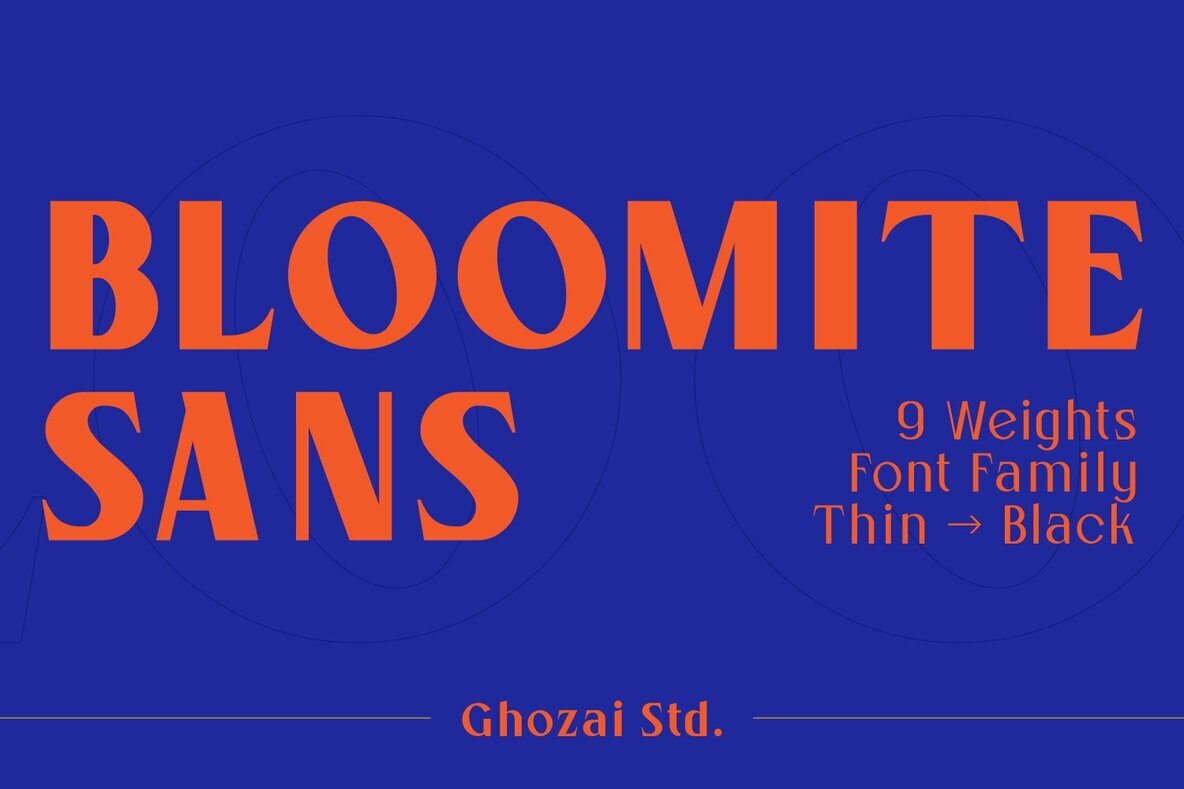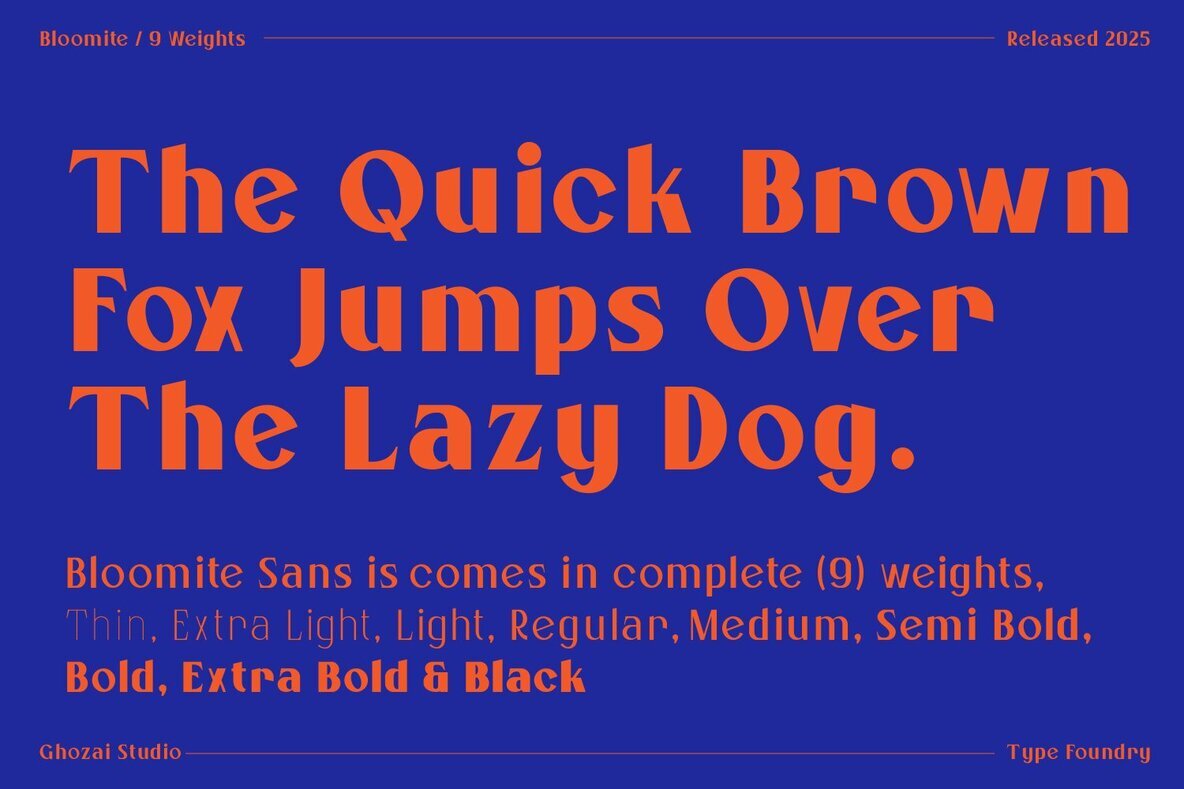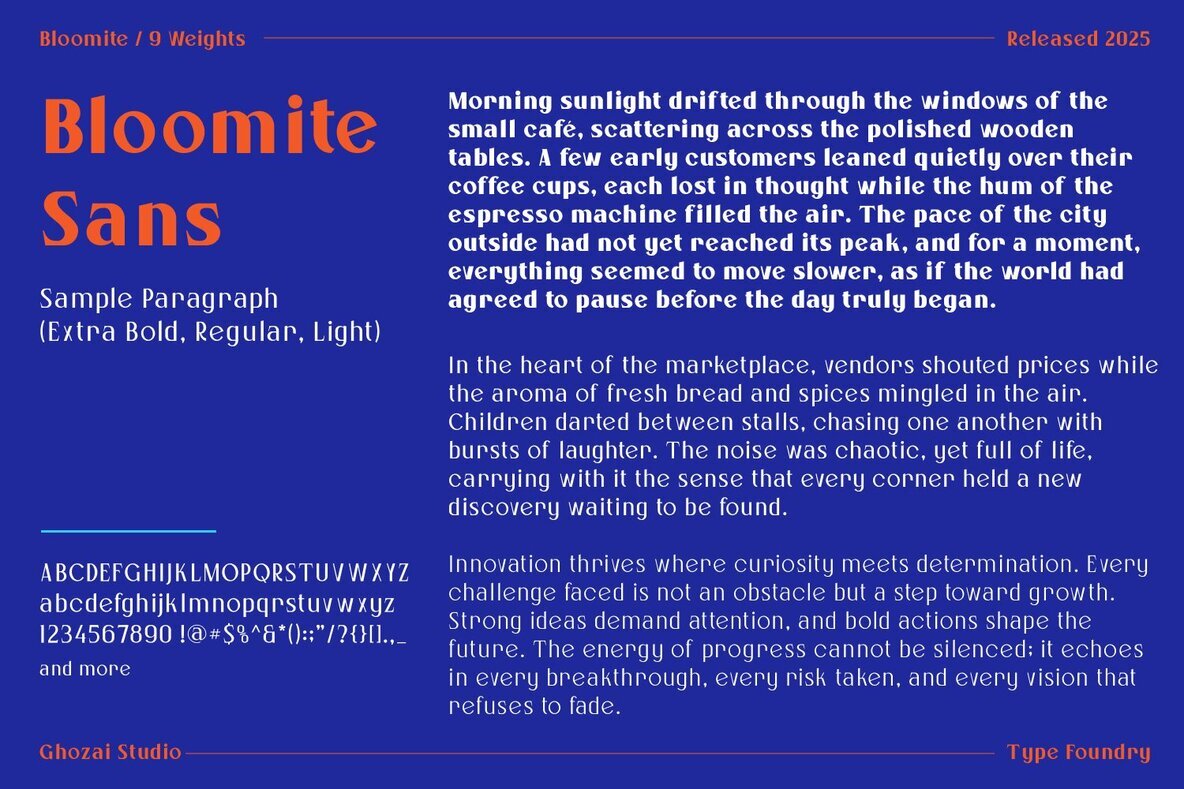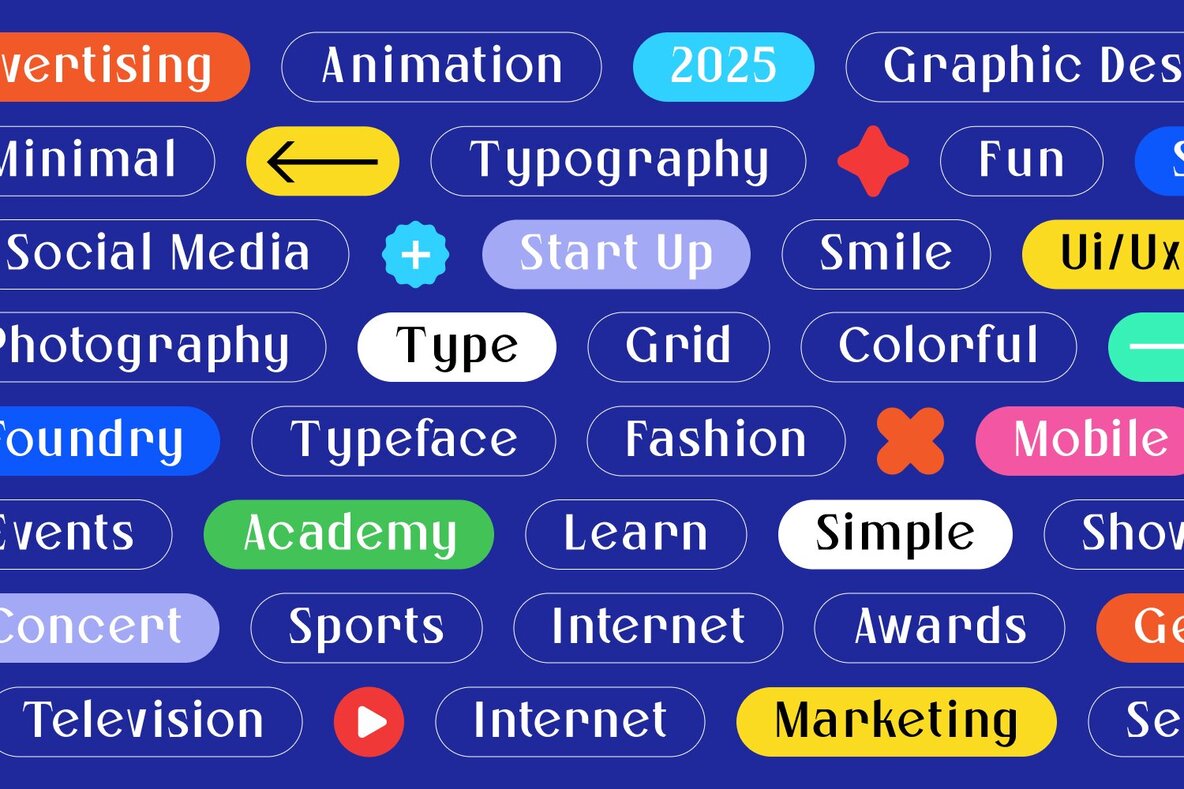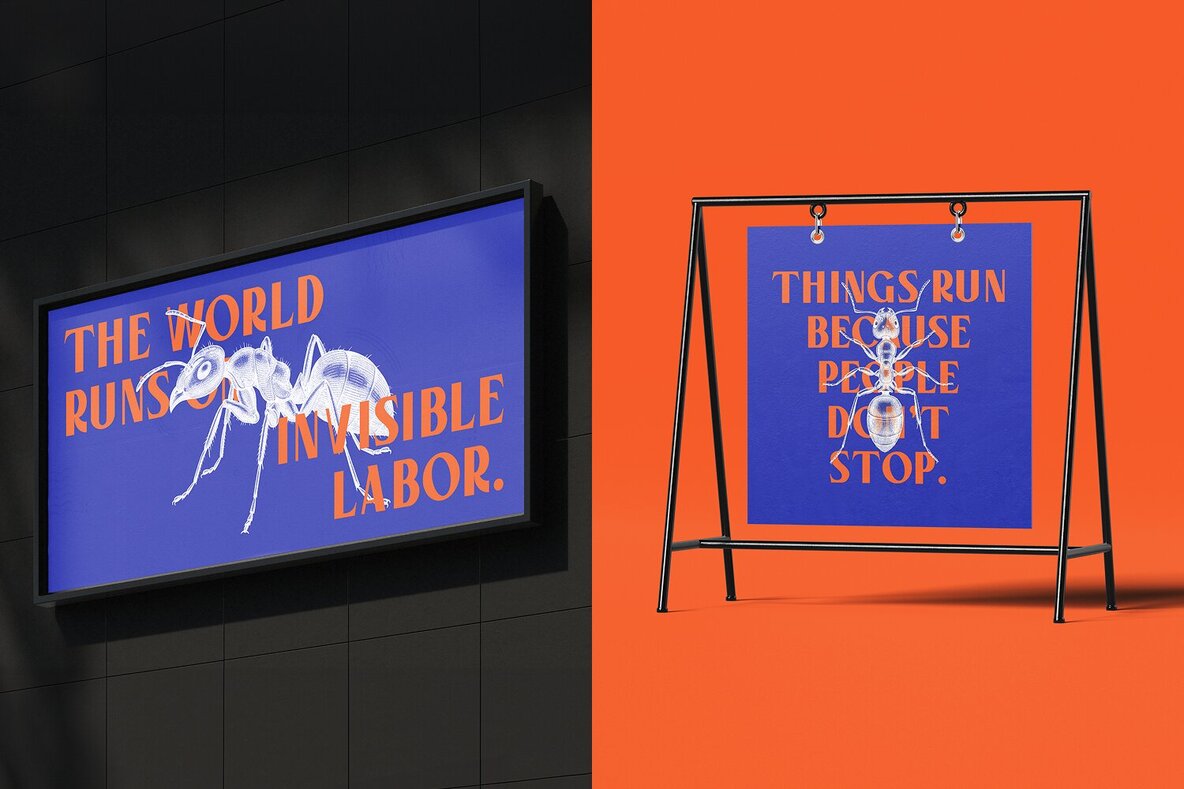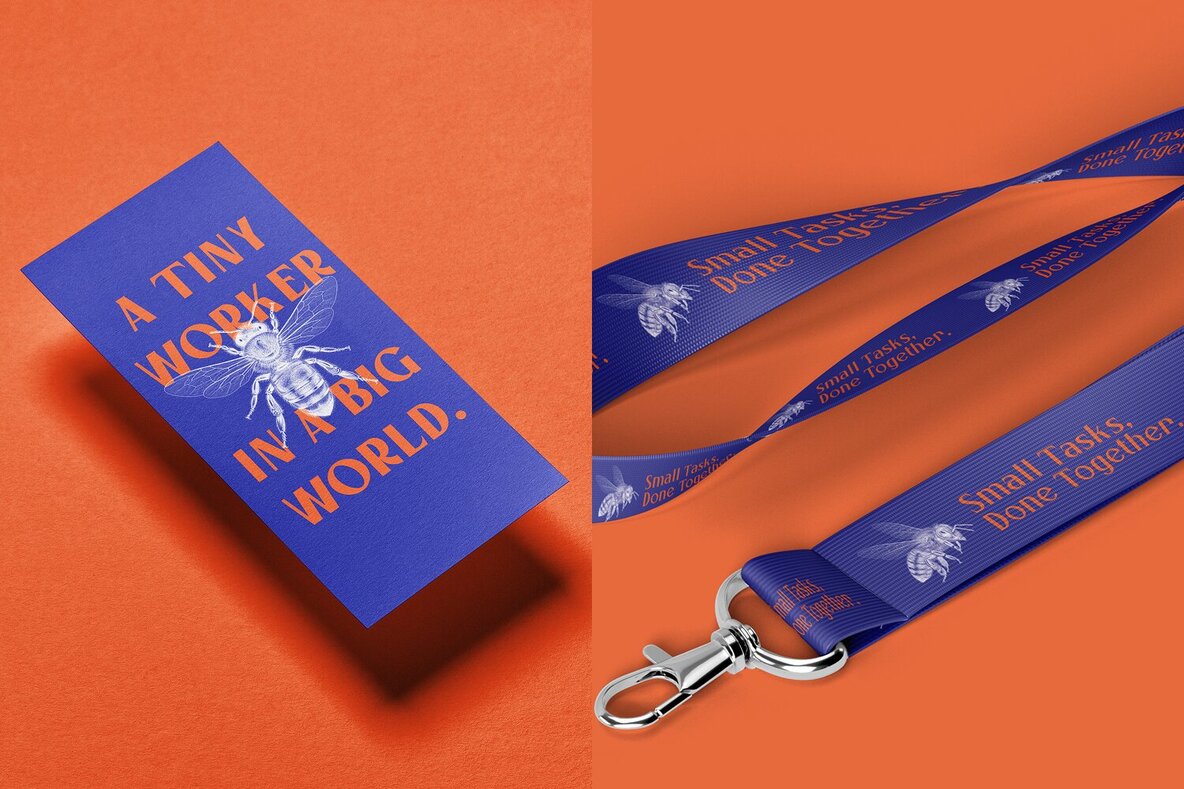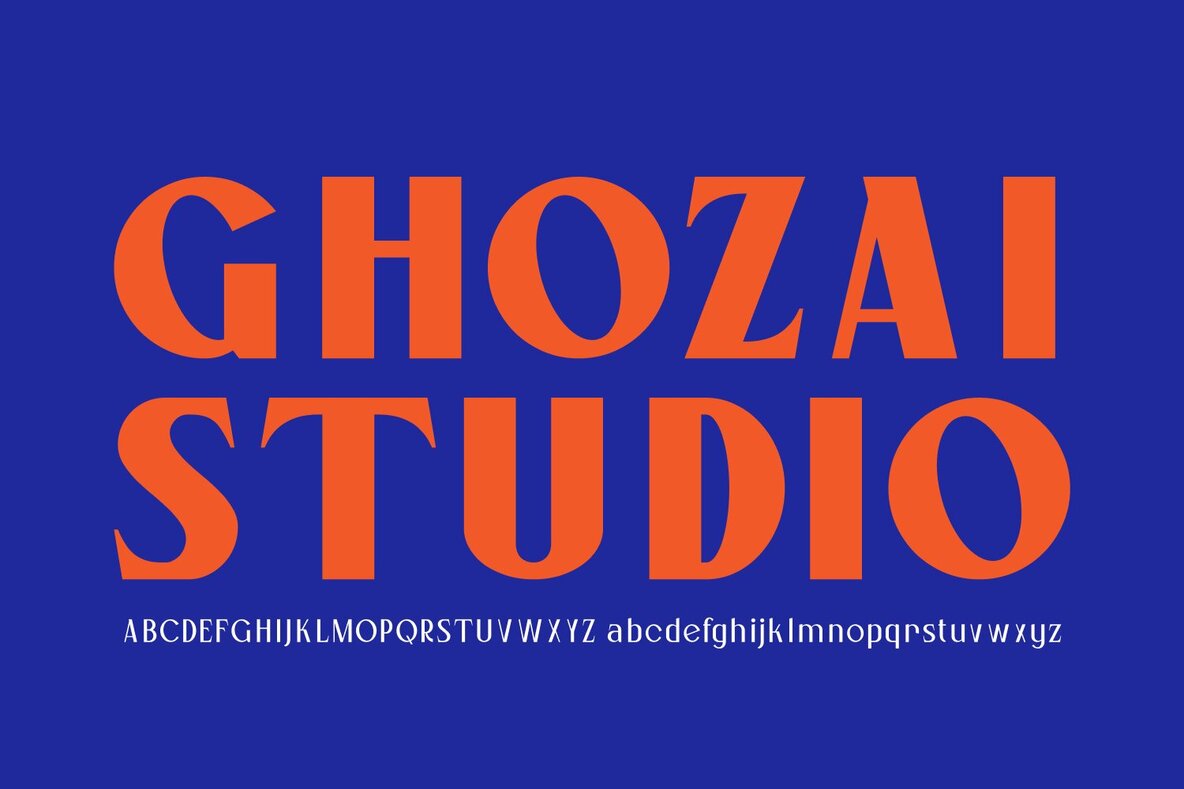
Bloomite Sans Font
Bloomite Sans offers a modern typographic approach, ideal for designers seeking both flexibility and clarity. With nine weights from Thin to Black, this font family is structured to meet the broad demands of graphic design, branding, and editorial projects. The clean shapes and contemporary proportions of Bloomite Sans make it an intuitive choice for any application, from headlines to body text. Its extensive multilingual glyph set supports a variety of languages, ensuring visual consistency in global communications. OpenType features enhance its adaptability, allowing for nuanced typographic control across print and digital media. Whether the goal is impactful display type or understated brand collateral, Bloomite Sans maintains visual integrity and usability without distraction.Bloomite Sans: Modern Sans Serif With Comprehensive Weight Range